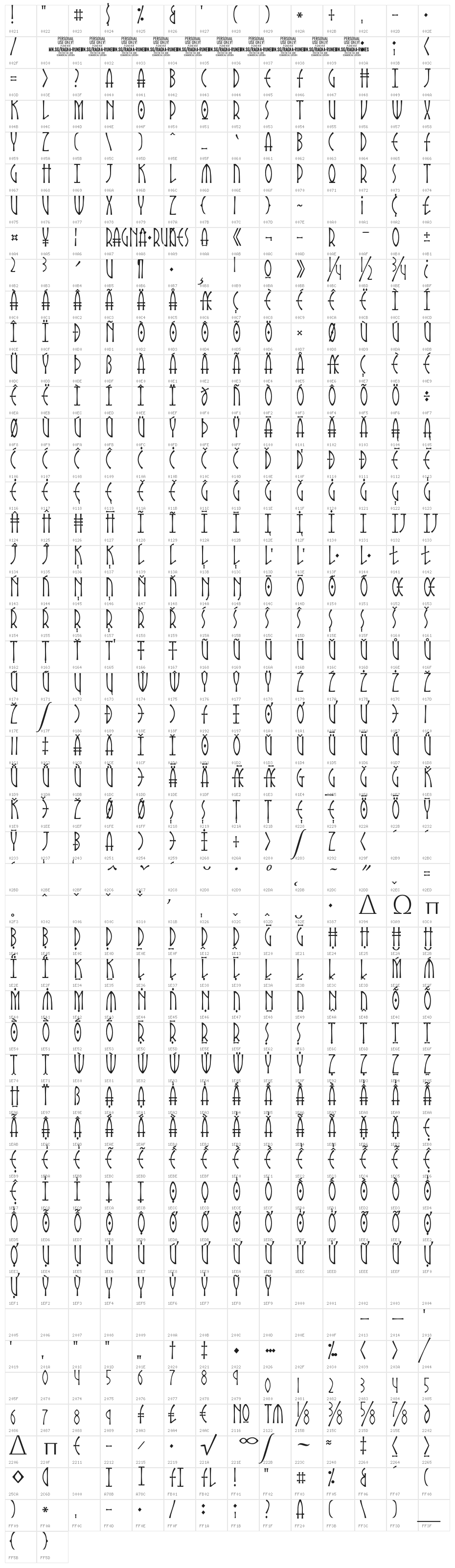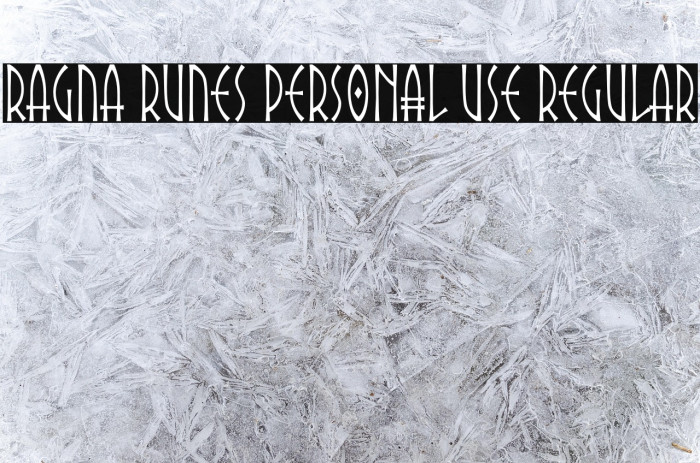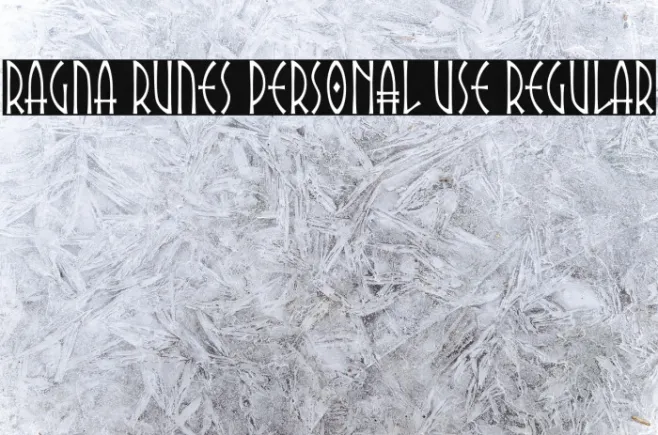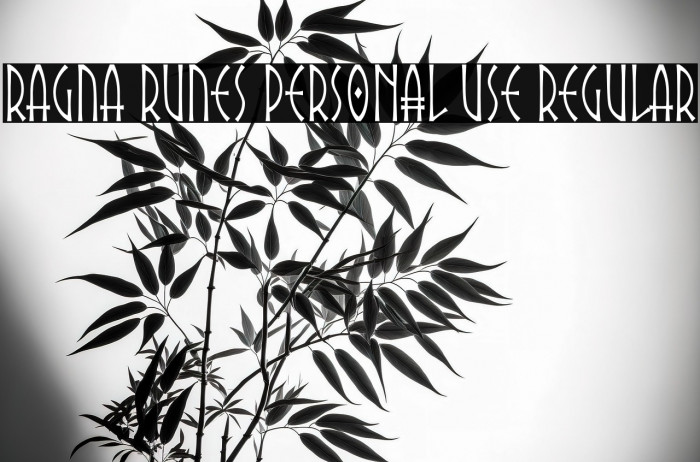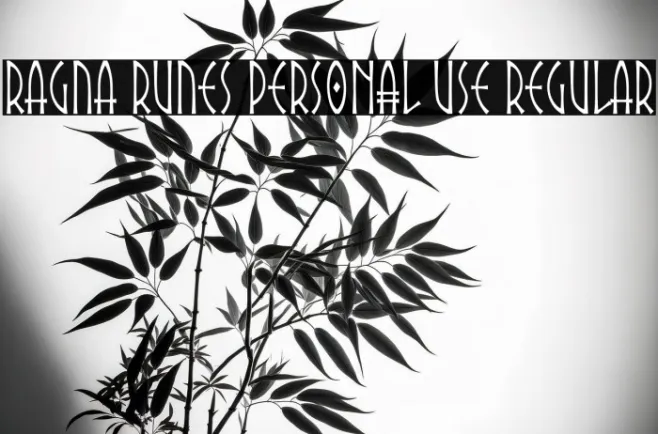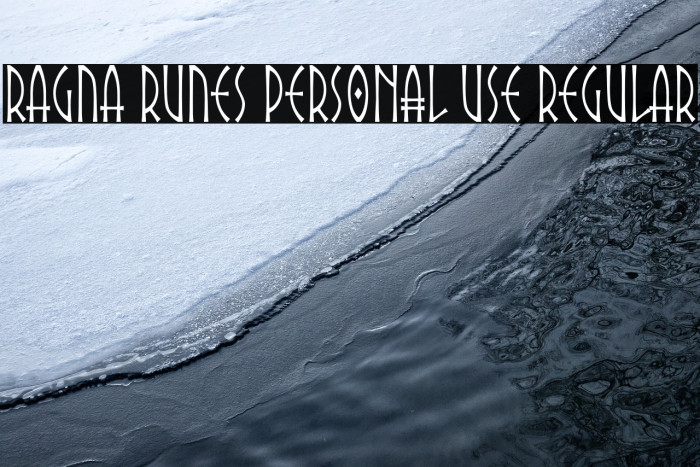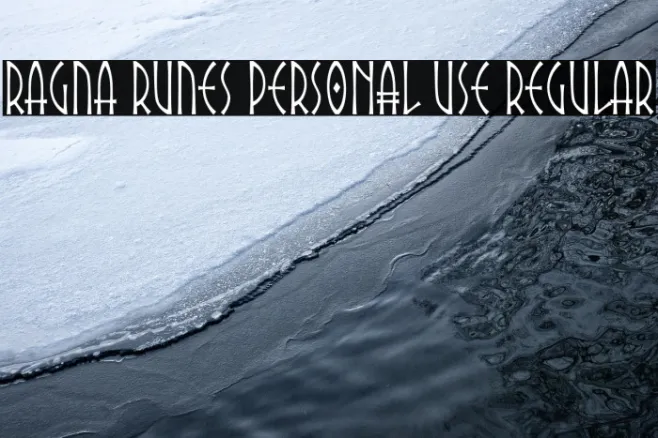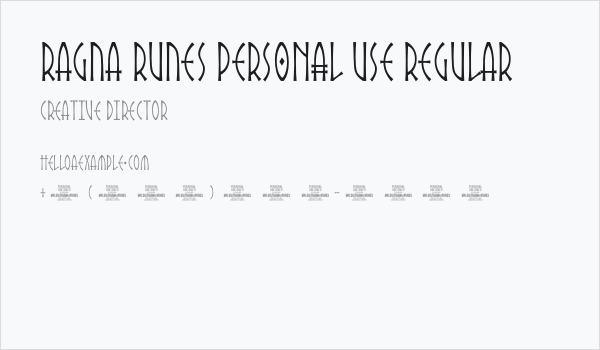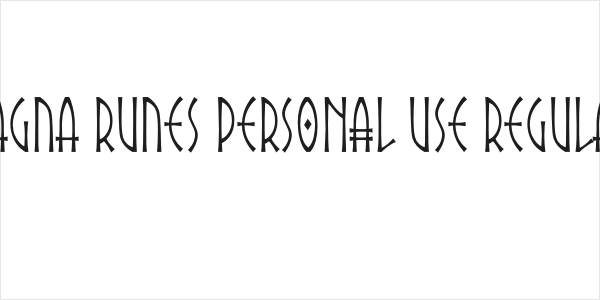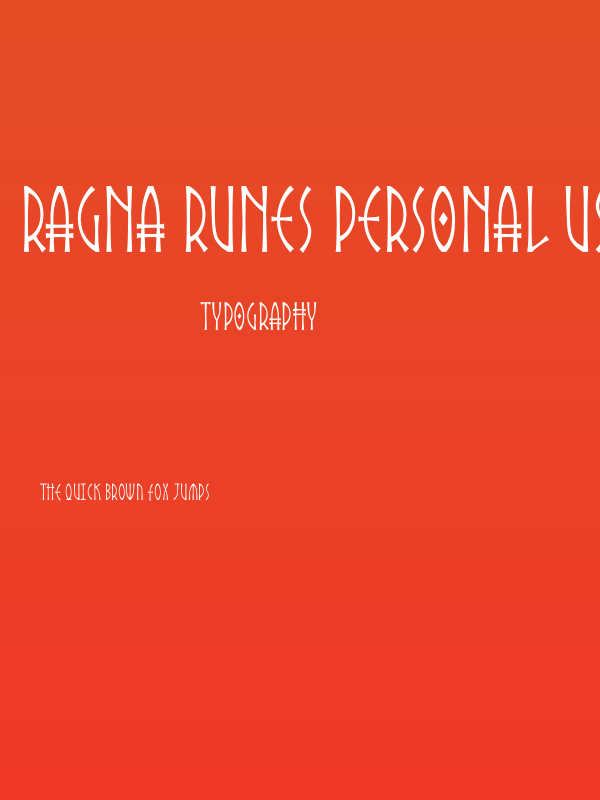
Ragna Runes PERSONAL USE Regular Font
Ragna Runes PERSONAL USE Regular Description
This font features a unique and decorative style that draws inspiration from ancient runic alphabets. The characters are tall and slender, with sharp angles and distinct geometric shapes that give it a mystical and historical feel. The uppercase and lowercase letters maintain a consistent height, creating a uniform appearance. Special characters are creatively integrated, enhancing the font's thematic consistency. The overall design is both artistic and legible, making it suitable for projects that require a touch of antiquity and elegance.
| Proposed Projects | Ideal for fantasy-themed designs, book covers, game titles, and historical event posters. |